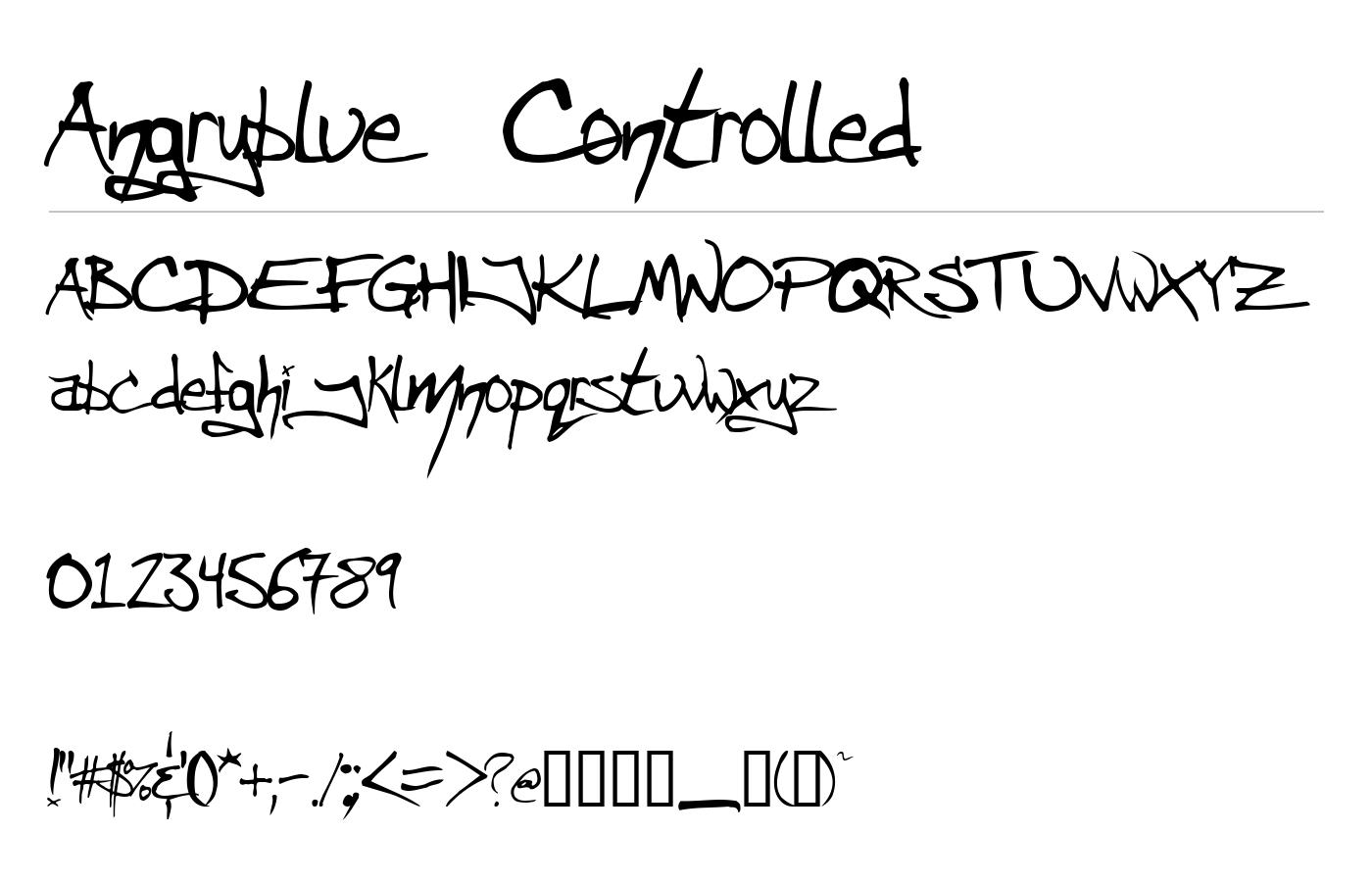
Angryblue Controlled is a dynamic handwritten font with an edgy, chaotic feel created by uneven strokes and unpredictable letter shapes. Its irregular forms and lively energy make it perfect for designs seeking a raw, expressive, and informal vibe, fitting well with artistic projects and bold headlines that want to capture attention. This font adds personality and a distinctive, hand-crafted look that stands out in creative branding and expressive visual storytelling.
Angryblue Controlled Font
About Angryblue Controlled Font